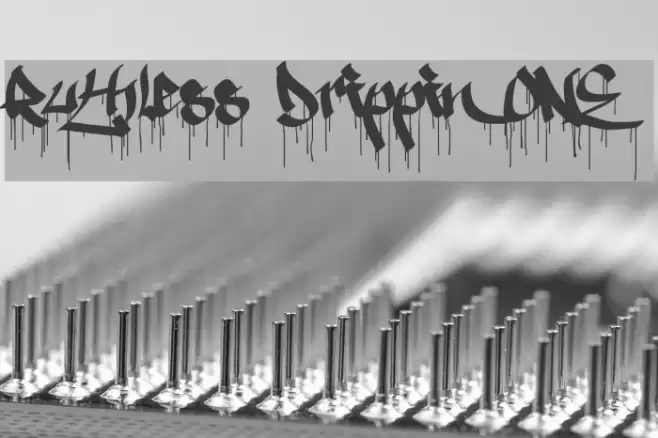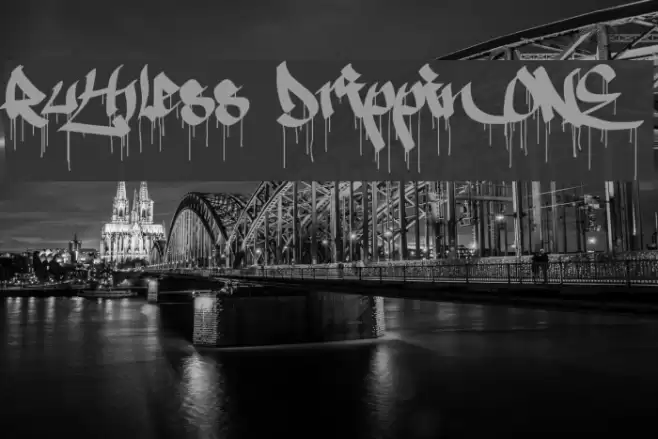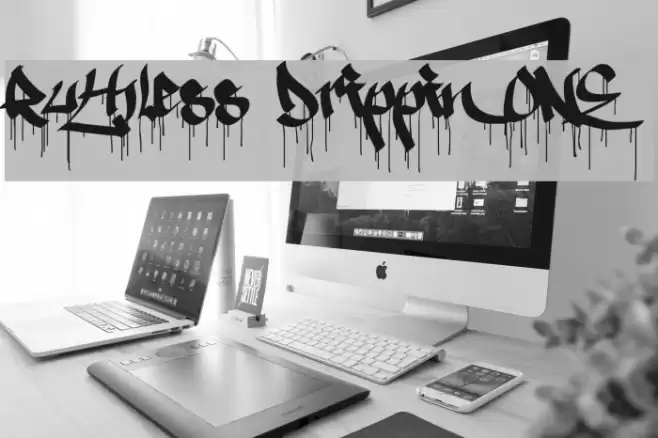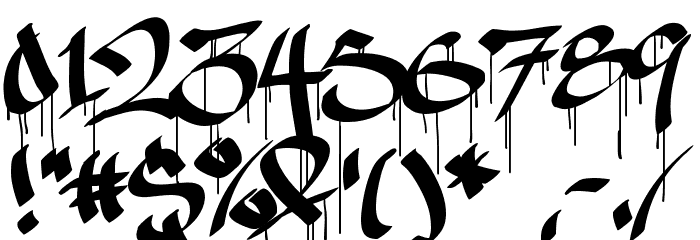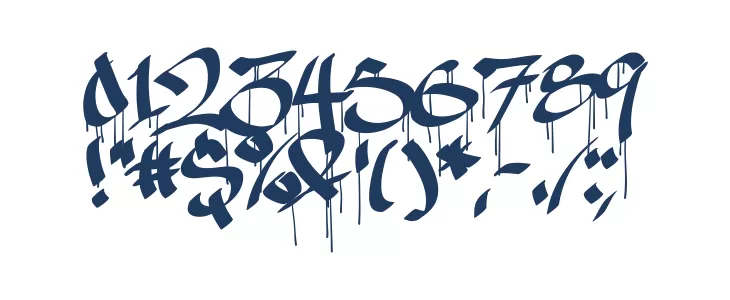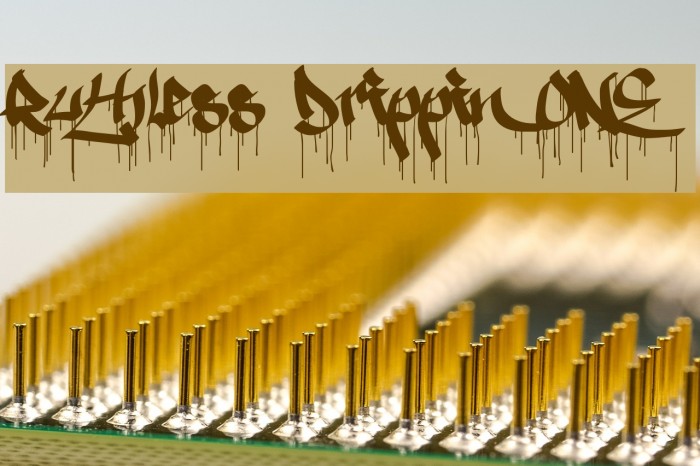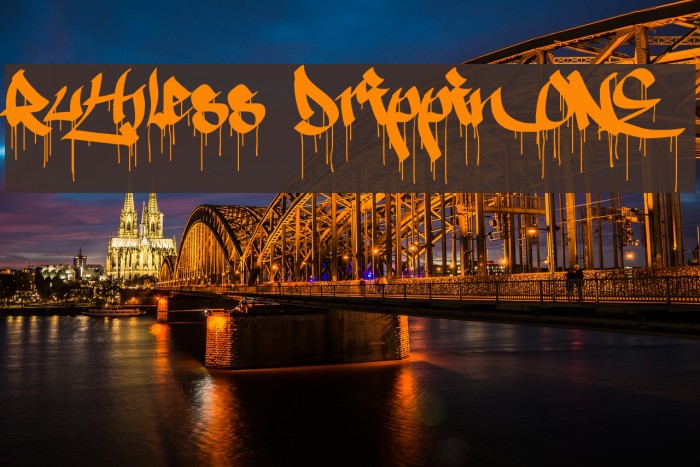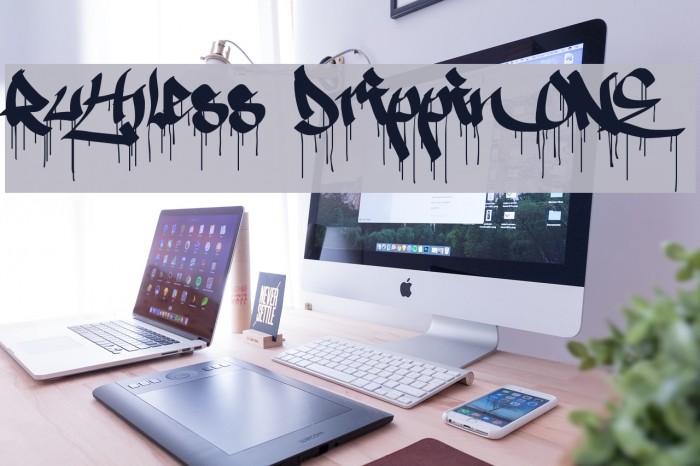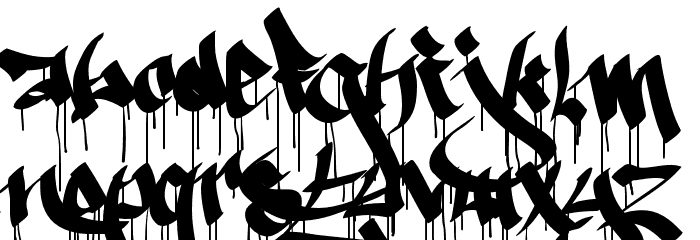
Ruthless Drippin ONE Font
Ruthless Drippin ONE Description
This font exudes a bold, rebellious spirit with its graffiti-inspired design. The letters are characterized by dripping effects, reminiscent of spray paint on a wall. Each character is uniquely styled, with sharp angles and dynamic curves that create a sense of movement and energy. The uppercase and lowercase letters maintain a consistent style, while the numbers and special characters add to the overall urban aesthetic. The font's edgy appearance makes it stand out, capturing attention with its artistic flair.
Graffiti-inspired font with bold, dripping letters and an urban aesthetic from Graffiti fonts.
- Proposed Projects: Ideal for street art projects, urban-themed designs, music album covers, and edgy branding.
- Overall Style: Modern, Urban, Edgy
- Use Case: Logos, Posters, Street Art, Album Covers